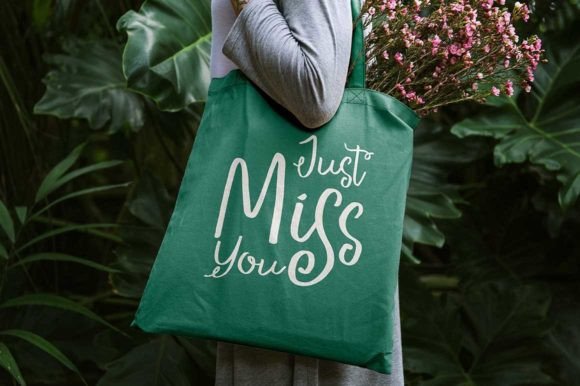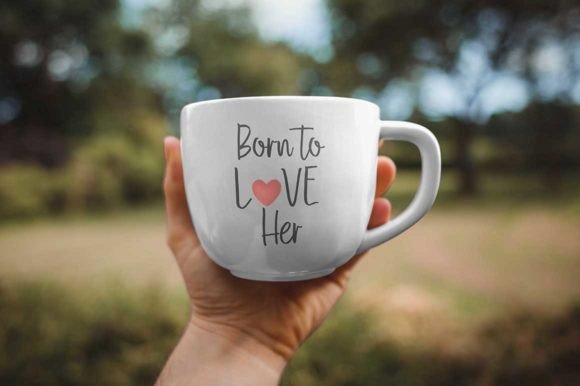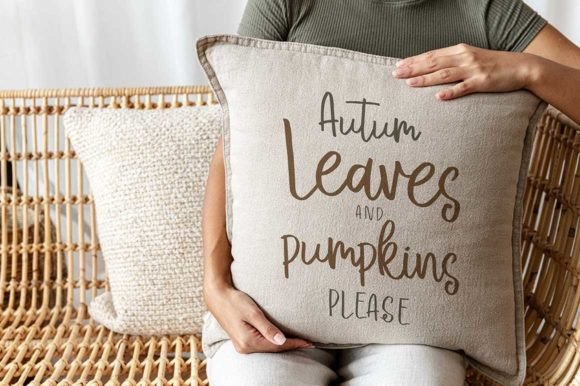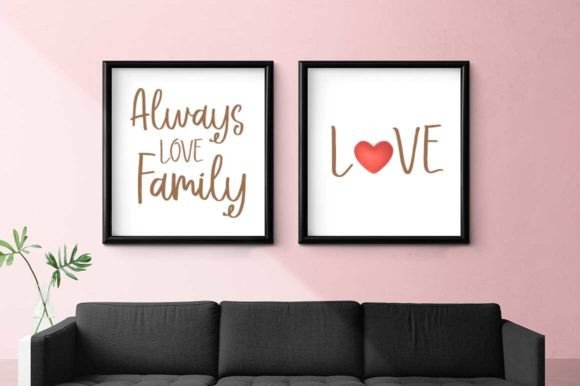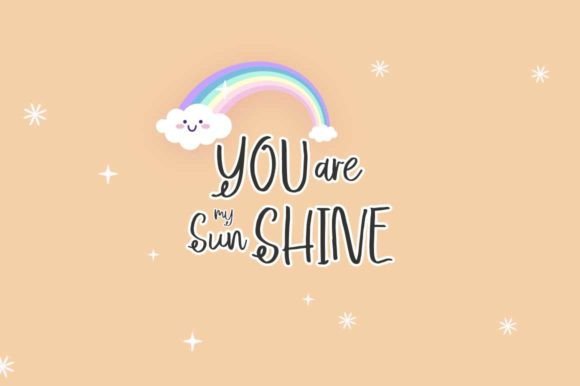
Introduction to Miss Sweet Font
Remember the moment when you stumbled upon the perfect font for your creative project? The one that made your design pop and stood out from the crowd? For many designers, this moment is a game-changer. And we’re excited to introduce you to the newest addition to your design resource arsenal: Miss Sweet Font. This gorgeous handwritten font has been making waves in the design community since its release in early 2023.
Whether you’re working on a digital design, crafting a personalized greeting card, or creating a presentation that needs a touch of personality, Miss Sweet Font is the perfect companion. Its high-quality design and versatility make it a valuable asset for designers of all levels. And the best part? It’s available for free download, complete with a transparent background, so you can easily incorporate it into your next project.
Key Features of Miss Sweet Font
- High-quality design resource ideal for creative projects, offering a unique and feminine touch.
- Miss Sweet Font comes with a transparent background, making it easy to layer and customize in various design applications.
- Unique characteristics include elegant script and cursive styles, perfect for wedding invitations, greeting cards, and other special occasion designs.
- Miss Sweet Font is a versatile design resource suitable for various creative projects, from digital artwork to printed materials.
- Easy to use and customize, making it an excellent choice for designers and artists looking for a high-quality, free design resource.
Honest Review: Miss Sweet Font
I recently had the opportunity to work with Miss Sweet Font for a creative project and was impressed by its high quality and versatility. The font is a great design resource for anyone looking to add a touch of elegance to their work.
- High-quality design that looks great on screen and in print
- Transparent background for easy layering and customization
- Wide range of applications, from logos to body text
⚠️ Limitations:
- May not be suitable for bold or dramatic designs, as it has a delicate and feminine feel
- Some users may find the font to be a bit too ornate for certain projects
Overall, I was impressed by Miss Sweet Font’s quality and flexibility. It’s a great addition to any designer’s toolkit and a must-try for anyone looking for a high-quality, free design resource.
For optimal results, use Miss Sweet Font in conjunction with a high-contrast background to make your text stand out. You can also experiment with different font sizes and styles to create visual interest.
Common Use Cases for Miss Sweet Font
Miss Sweet Font is perfect for a variety of creative projects, including invitations, social media graphics, and website headers. Its transparent background feature makes it ideal for use in digital design, while its high-quality design ensures that it looks great in print as well.